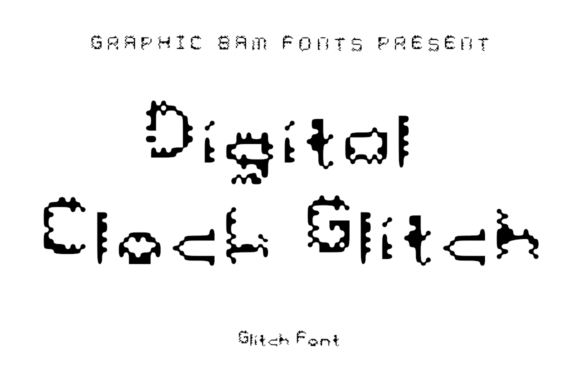
Dive into the world of digital glitch artistry with Digital Clock Glitch Font, a captivating display font that will send your designs into a mesmerizing vortex of pixels. Its unique glitched aesthetic is a testament to the beauty of imperfections, injecting a raw, edgy charm into your creative projects.
From website headers that scream innovation to social media posts that demand attention, Digital Clock Glitch Font is your go-to choice for making a statement. Its uppercase and lowercase versions offer endless possibilities for experimentation, allowing you to craft designs that dance on the cutting edge of digital art.
Unleash your inner web nerd and let your imagination run wild with this glitch art lover's dream font. Embrace the distorted beauty of Digital Clock Glitch Font and watch as your designs transform into captivating expressions of digital artistry.
But wait, there's more! This remarkable font isn't just limited to the digital realm. Its distorted charm transcends screens and seamlessly blends into the world of interior design. Whether you're a seasoned pro or just starting out, Digital Clock Glitch Font will elevate your interior design projects to new heights.
Picture this: a stunning wall mural that captures the essence of digital chaos, or a series of eye-catching posters that bring a touch of glitch art to your living space. Let Digital Clock Glitch Font be your muse as you create captivating designs that blur the boundaries between the digital and the tangible.
So, why settle for ordinary when you can embrace the extraordinary with Digital Clock Glitch Font? Its distorted beauty and versatility are sure to leave an unforgettable impression on your audience. Join the ranks of creative pioneers and download Digital Clock Glitch Font today. Let your designs glitch and shimmer with digital artistry, and experience the transformative power of this extraordinary font.